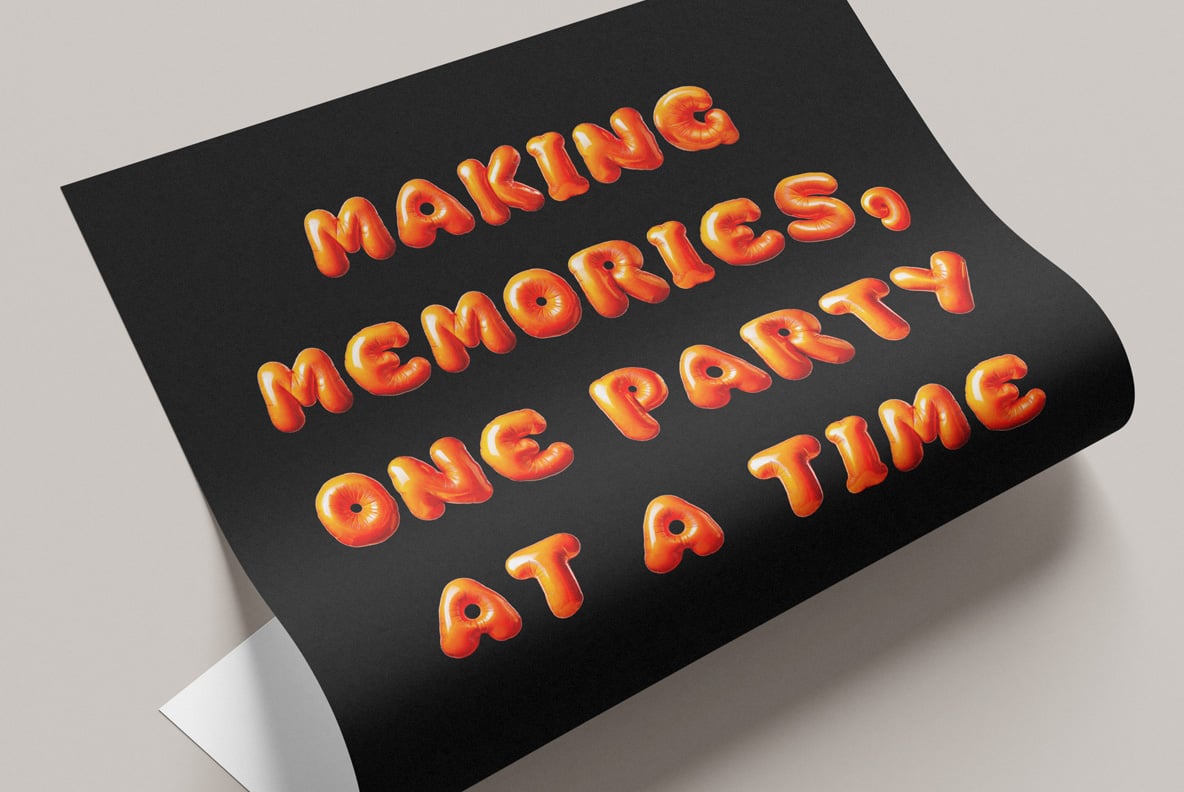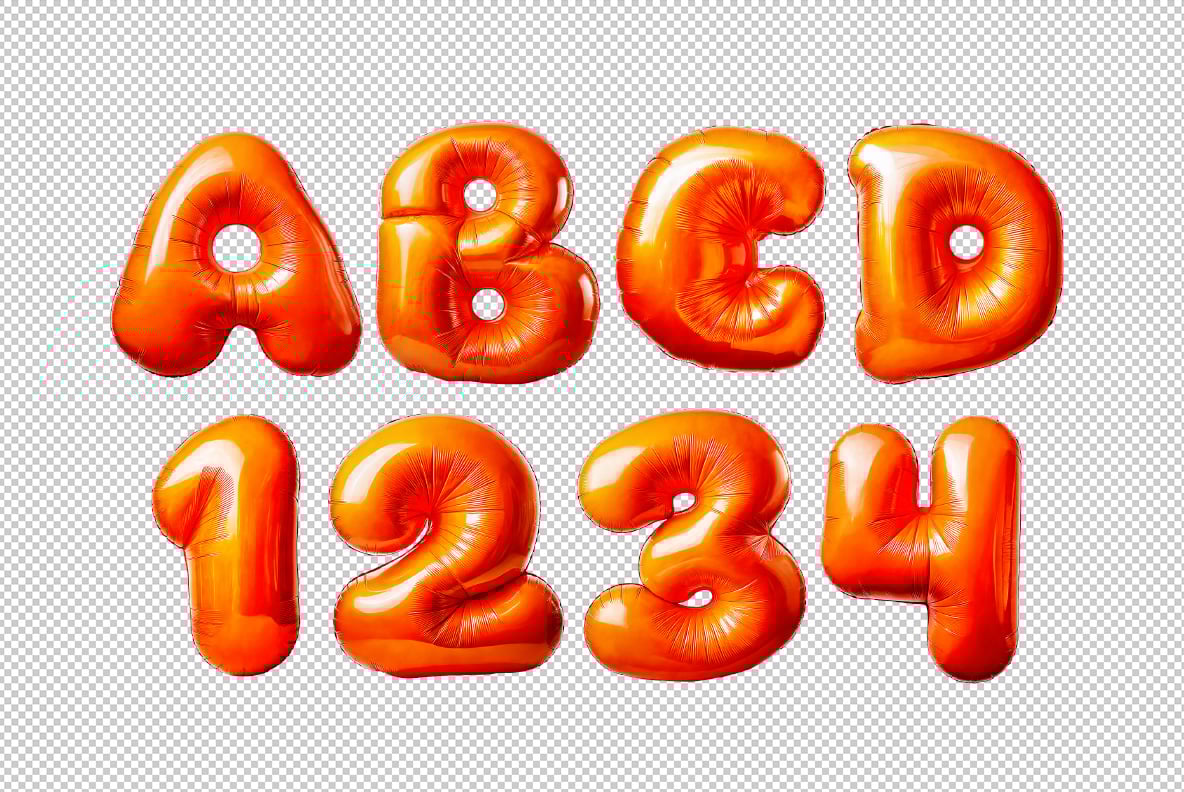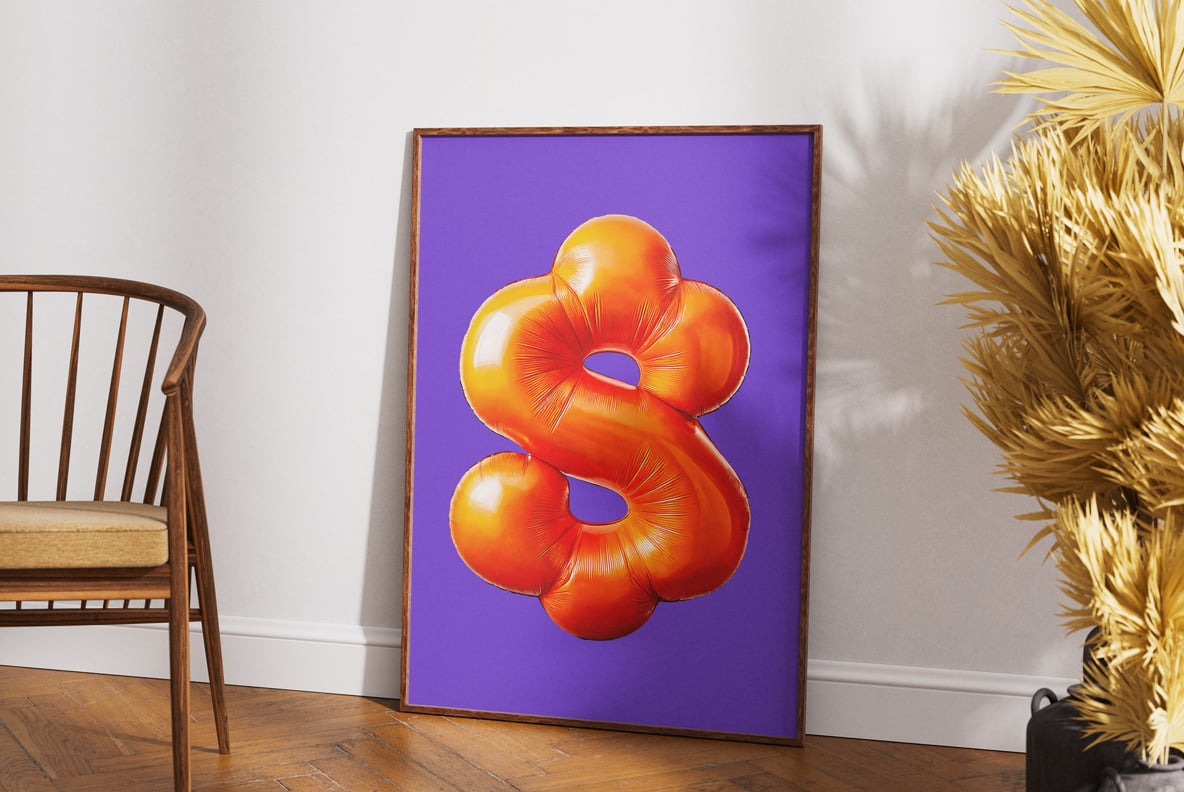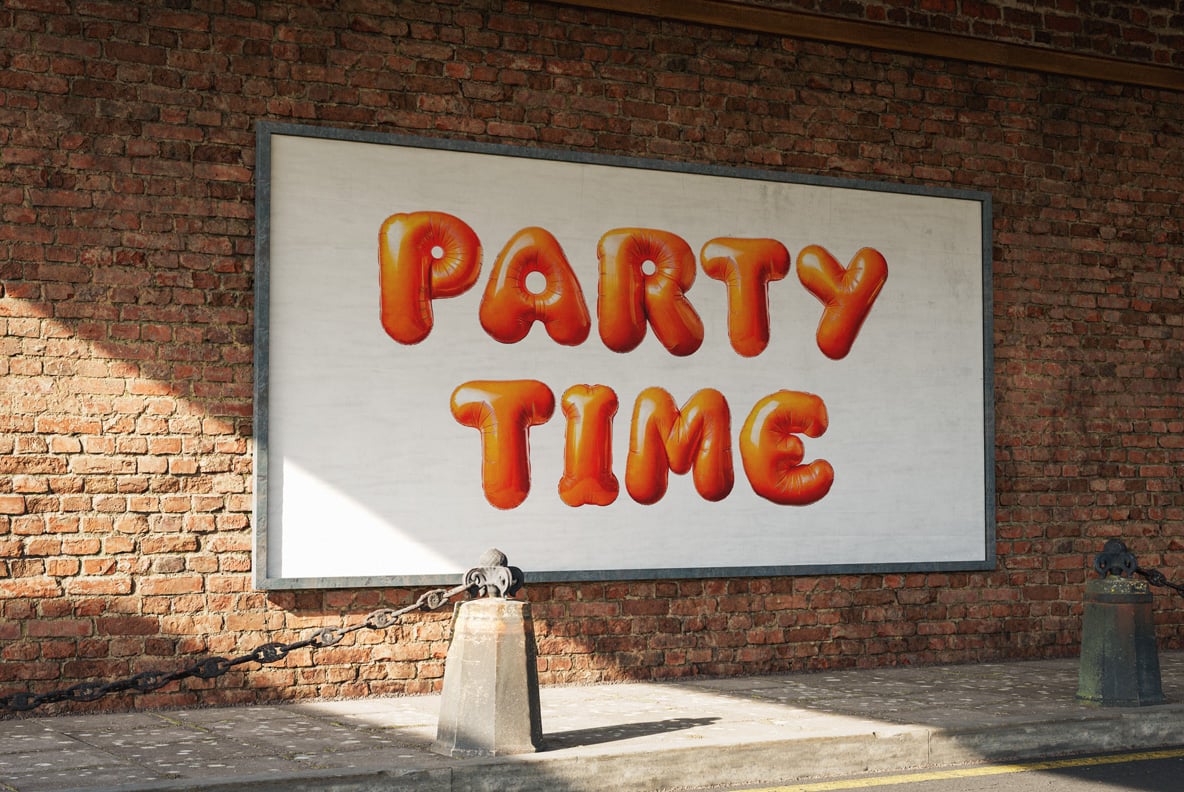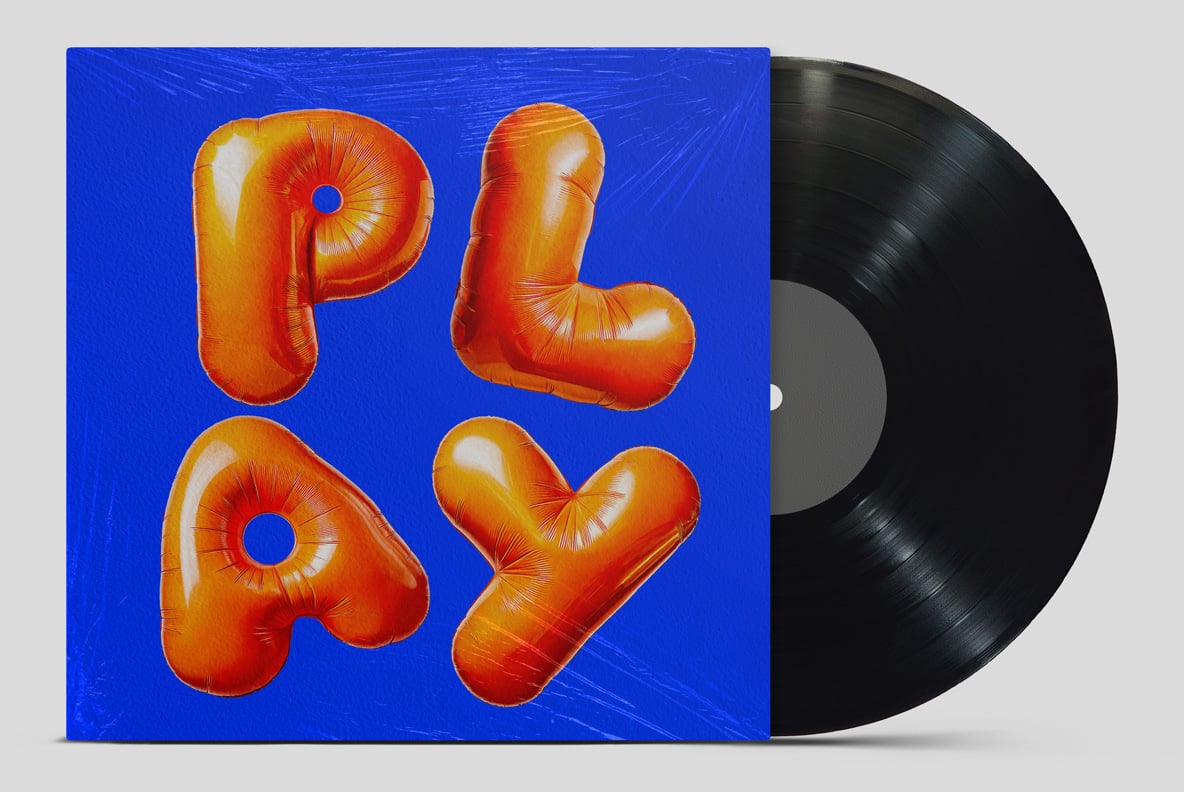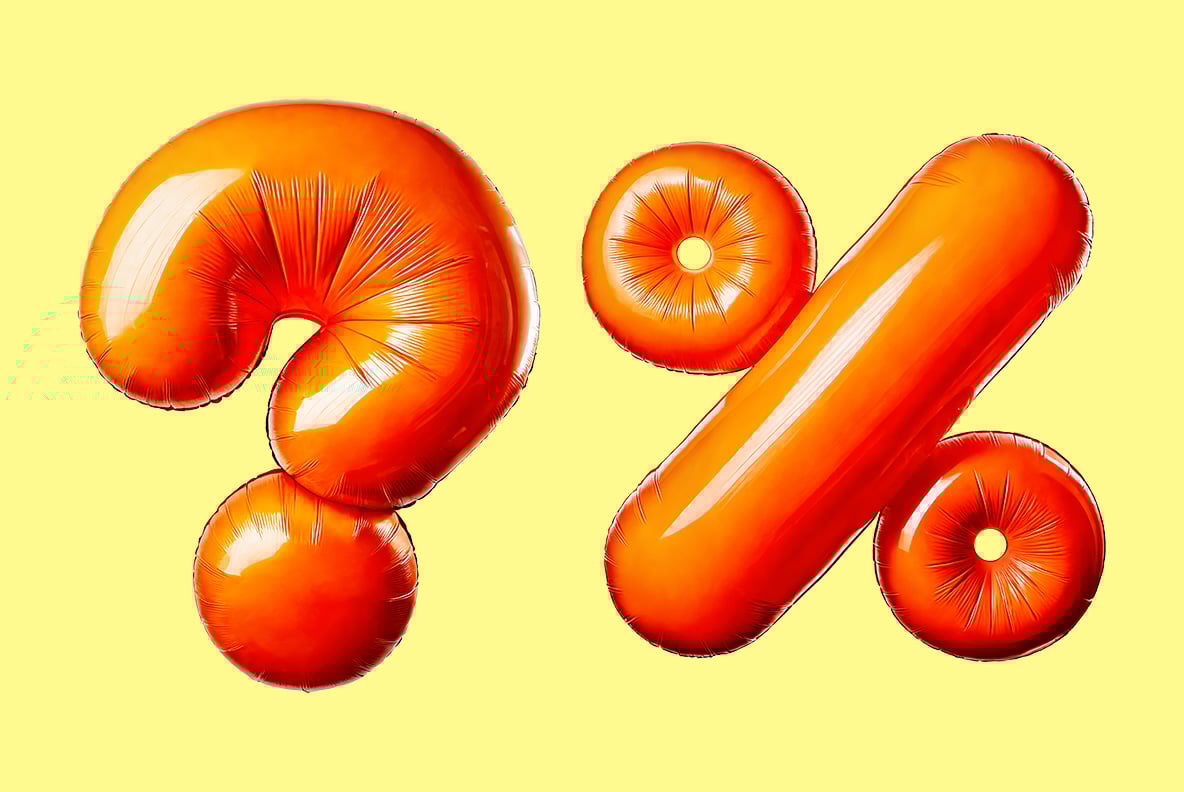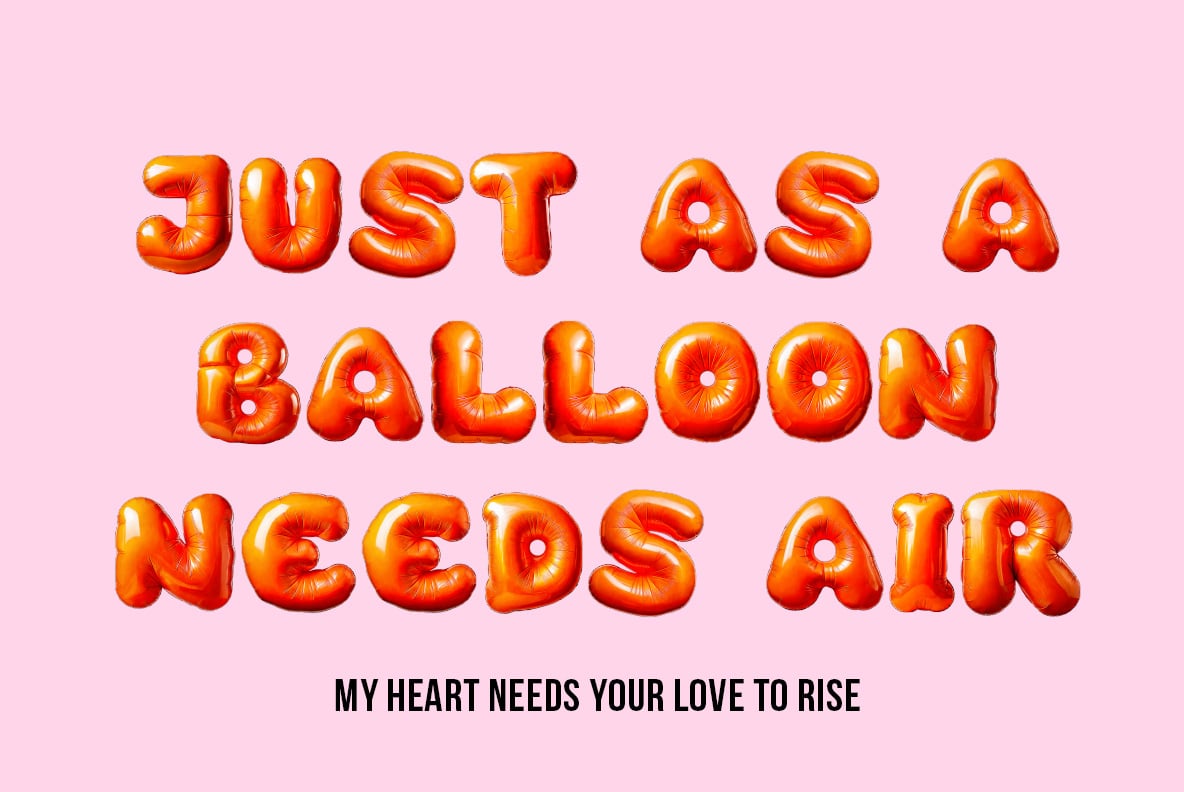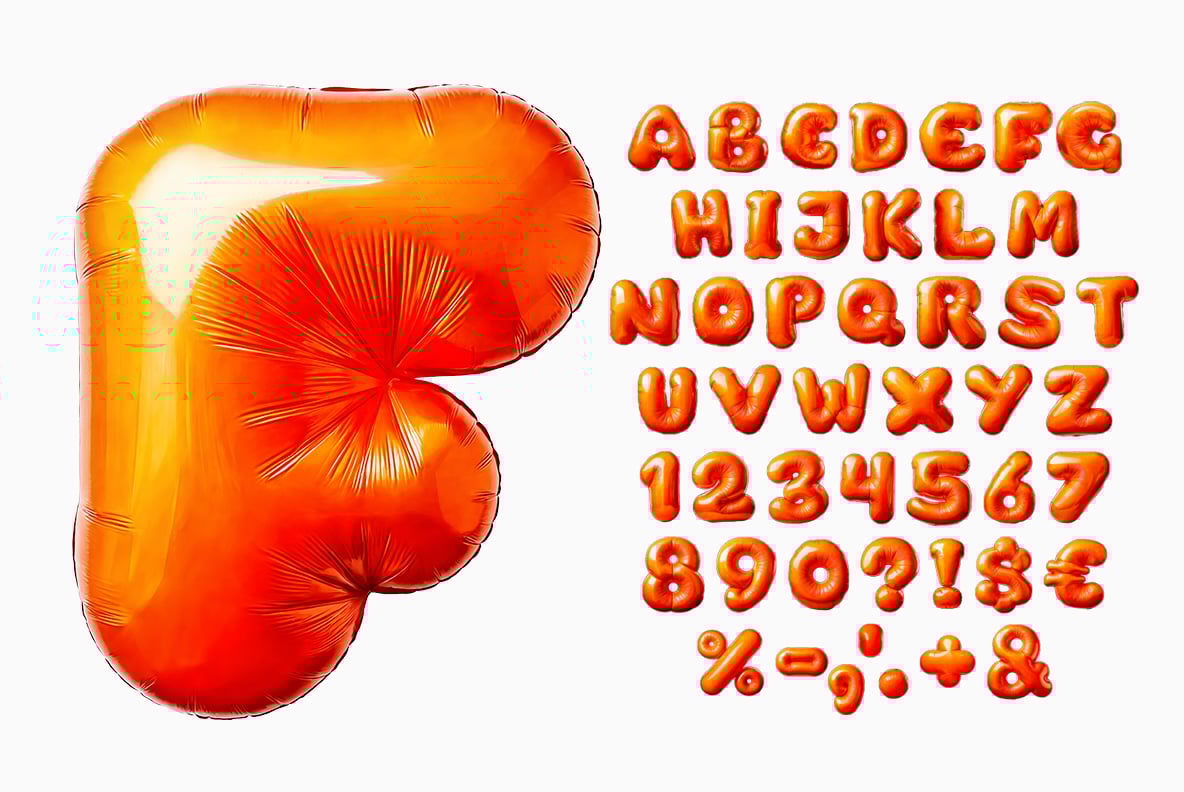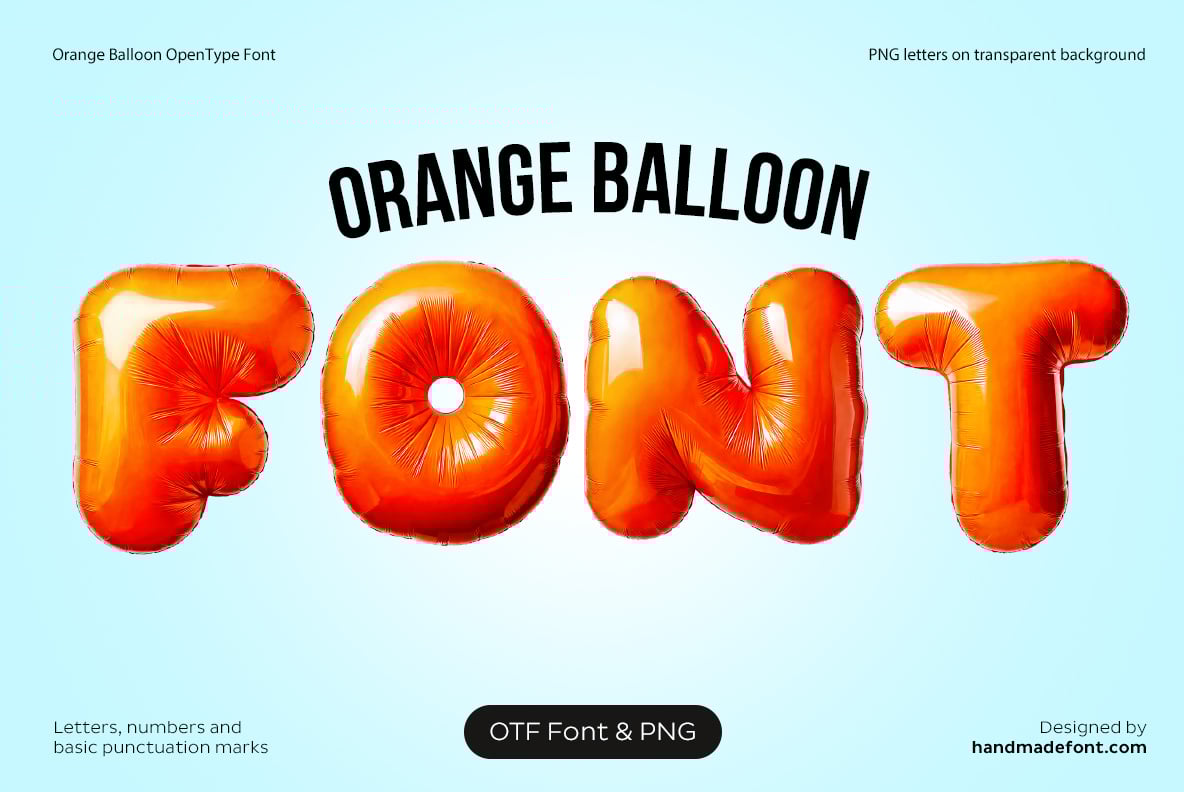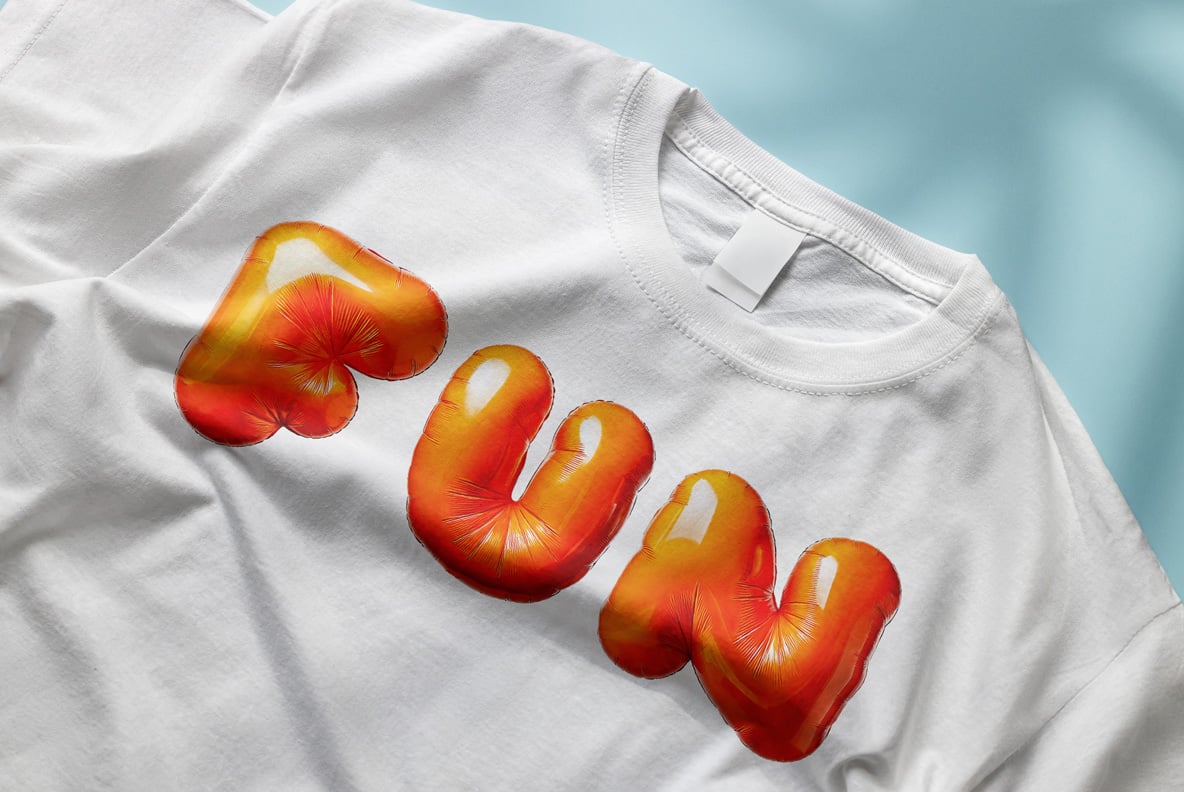
Orange Balloon Font
Orange Balloon Font brings a playful, party-ready vibe to any project! This fun, bubbly alphabet is designed to look like shiny, inflated orange balloons, perfect for adding a burst of joy to posters, invitations, and social media graphics. Each letter pops with vibrant energy, making it ideal for kids' parties, celebrations, and cheerful branding. Let your words float high with this eye-catching, festive font!
Others : ! ? - . ' $ € % &